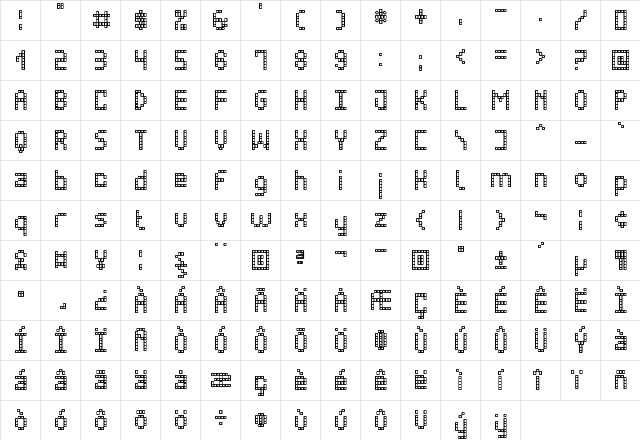
UltraLED St Regular
Design Context for UltraLED St Typeface
UltraLED St takes a measured approach to typography — its balanced proportions and neutral character make it a reliable workhorse for both digital and print work.